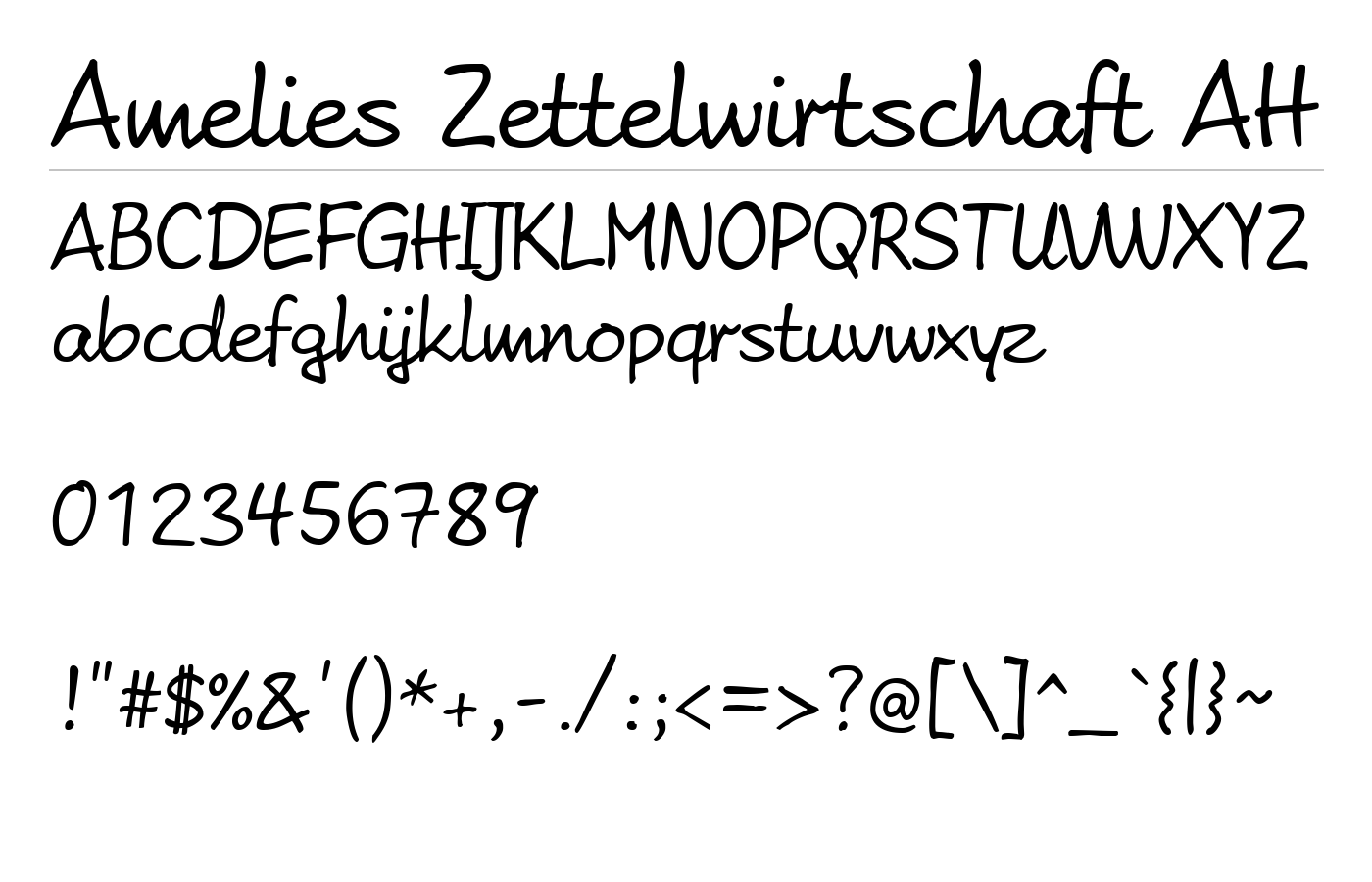
Amelies Zettelwirtschaft AH is a playful and casual handwritten sans serif font that offers a friendly, informal vibe. Its irregular strokes and slightly quirky letterforms give it a personal touch, making it ideal for creative projects, invitations, and branding that seeks a warm, approachable feel. This font works best in headlines and short text where its unique character can shine and add personality.
Amelies Zettelwirtschaft AH Font
About Amelies Zettelwirtschaft AH Font
| Designer | Andreas Höfeld |